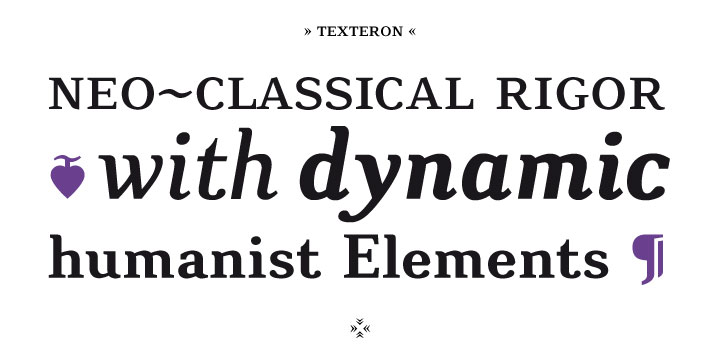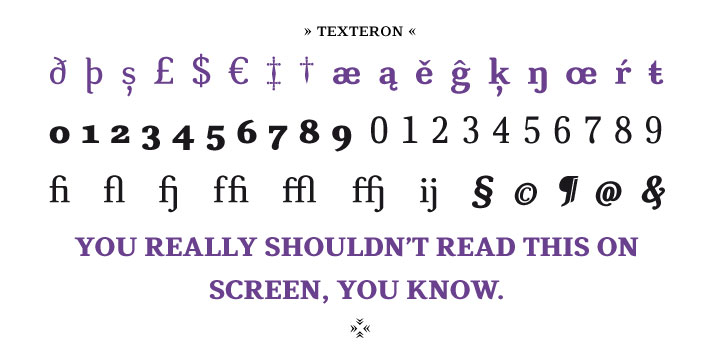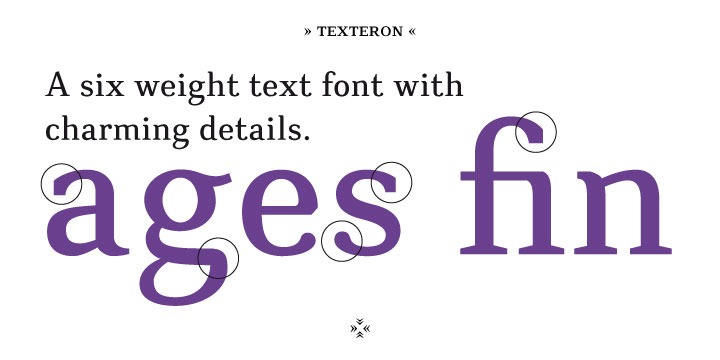
CA Texteron is a serif font family. This typeface has six styles and was published by Cape Arcona Type Foundry.
CA Texteron is a modern text font family to cover the most common typographical needs with a minimum of weights. It is aiming for a serious but unconventional look, which is achieved by combining round and edgy forms in the same font, often in the same glyph, and by using Humanist and modern form-principles at the same time. It merges classical type-design with an experimental spirit. CA Texteron combines elements of the dynamic renaissance principle with the static neo-classic style, which makes it hard to classify. The result is a post-modern hybridization.
The Regular weight works best in text size, and with more letter-space also for footnotes. The low contrast makes it robust and legible even in very small sizes. Bold, Italic and Small Caps are intended for emphasis. Bold, Bold Italic and Heavy make good headlines, that reveal the unconventional details. The Italic is not just a slanted version of the Regular weight but has individual forms and typical italic characteristics.